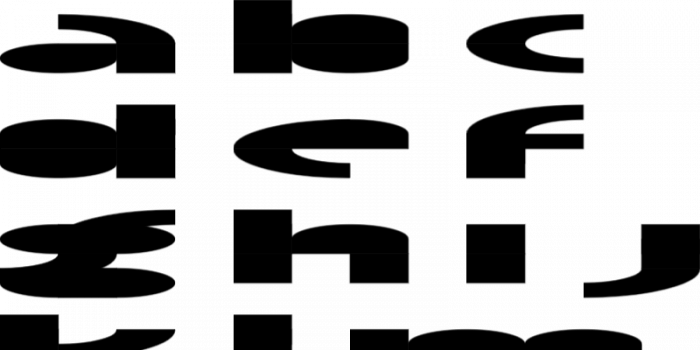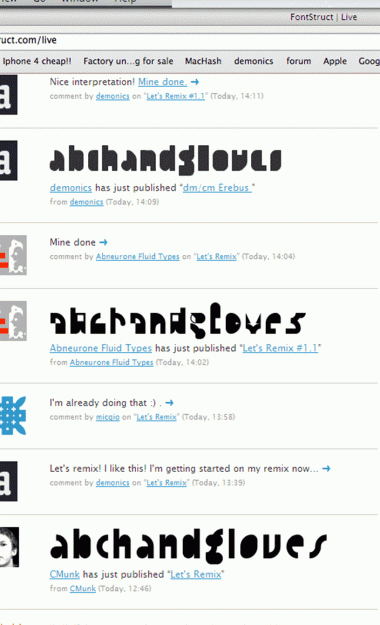
• Let's Remix! I've made a simple font with only lower case and some punctuation. So please clone the font and add to it and/or modify it as much as you want. Abneurone suggested we should do some remixing of eachothers typefaces. I don't know if this was what he meant, but here we go.
Let's remix! I like this! I'm getting started on my remix now...
I'm already doing that :) .
Mine done
We can see the evident different styles of FSors:
CMunk - Quirky, innovative letterforms,
Abneurone - Amazingly weird, detailed glyphs that look like real-life objects,
Me - ugh. Just kidding :)
2nd done
@C-Munk : You're invited to remix our remixes if you like
Hm... I'm gonna try mine!
I would also remix this, if not my recent Balaqay, cause it actually looks like as if I remixed this version :)
Oops, sorry, wrong picture.
Here:
Mine done.
I don't know, but it seems much more like demonix-ish than mine :)
Whoops... I forgot the pic : '
Cool, this is already a success!
@Abneurone: Yes, I thought of that too. I'll go and remix some of yours ;)
link Well that failed
What seems demonicsish?
Never mind, I see it. CMunk, can we see a sample of all of them? Please :-)
Here's my suckish one:
That's mine
Mine at http://fontstruct.com/fontstructions/show/13remix
W I D E
see my recent one, pretty fancy ngl